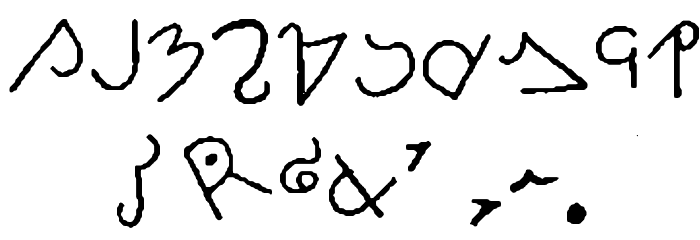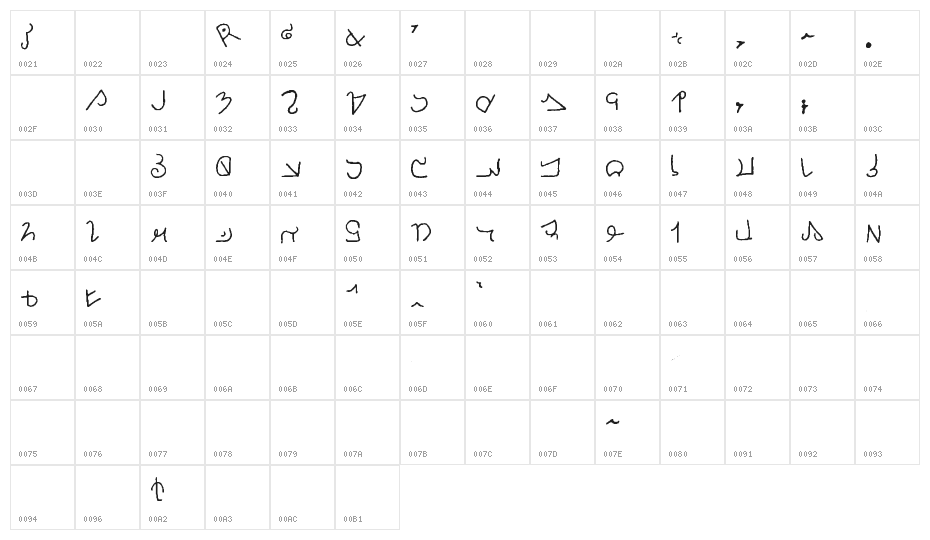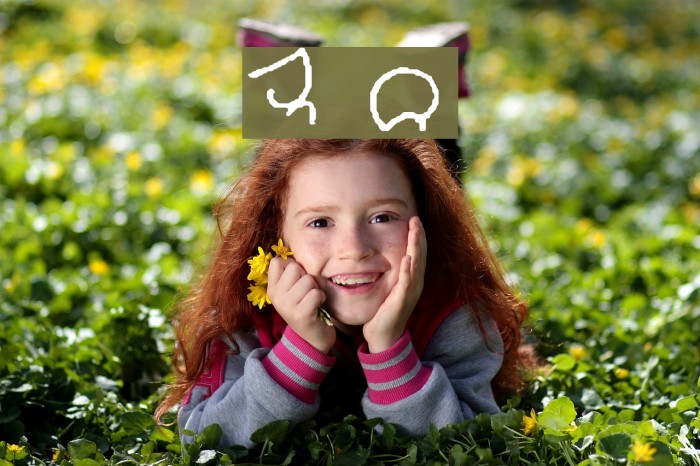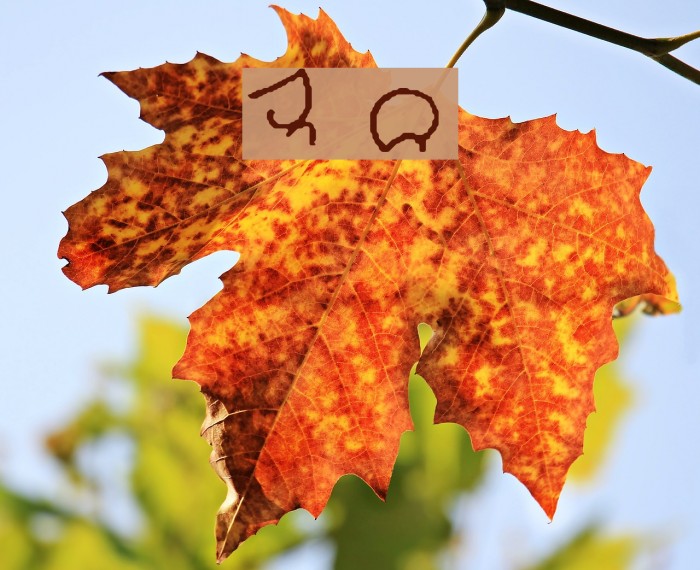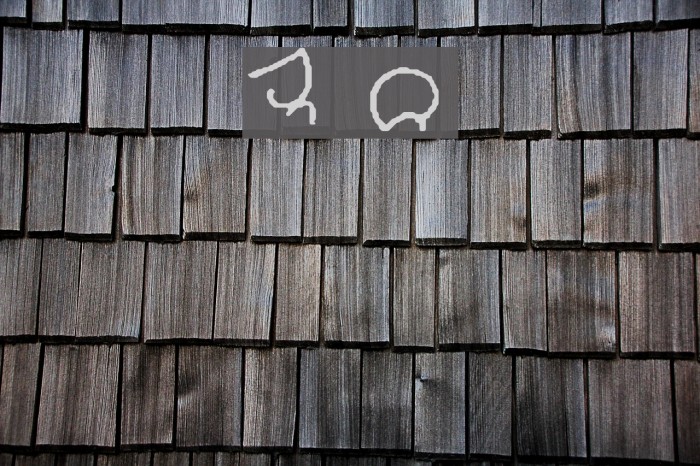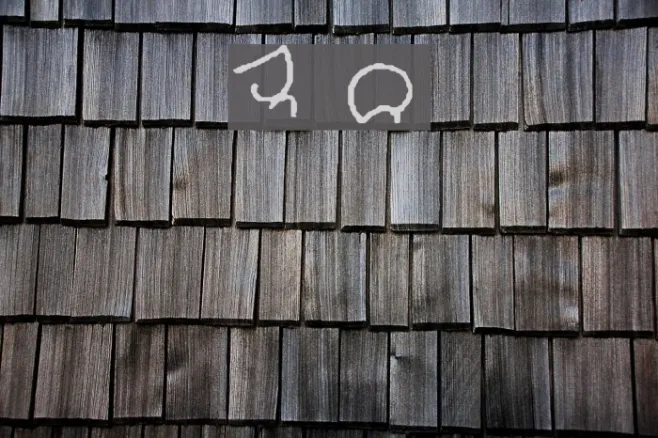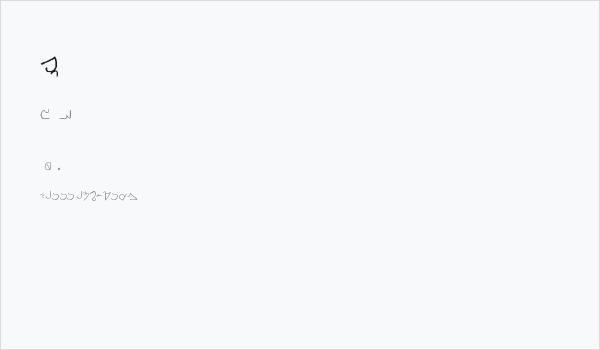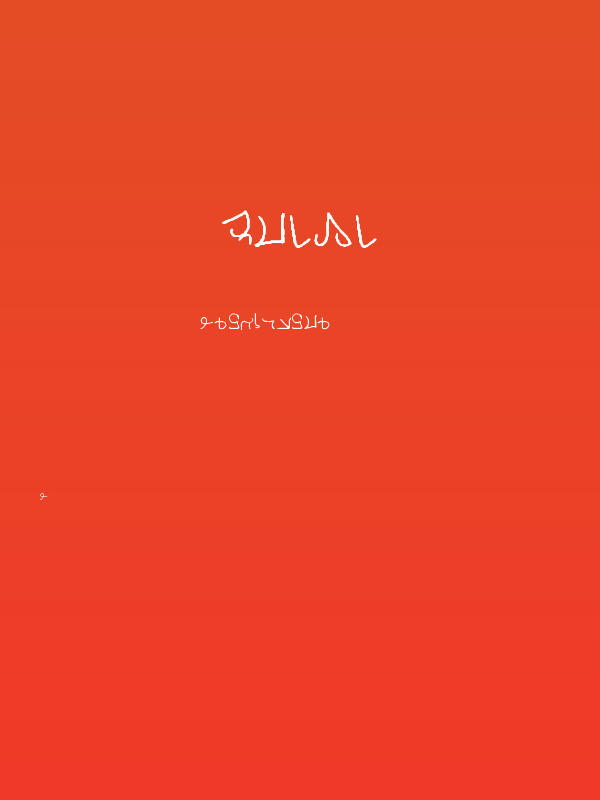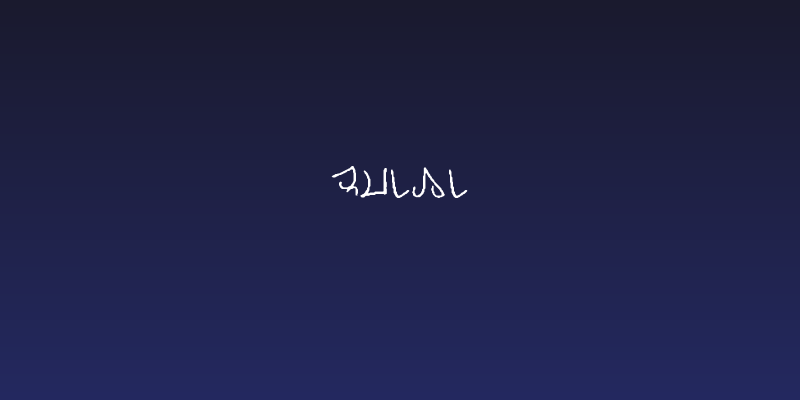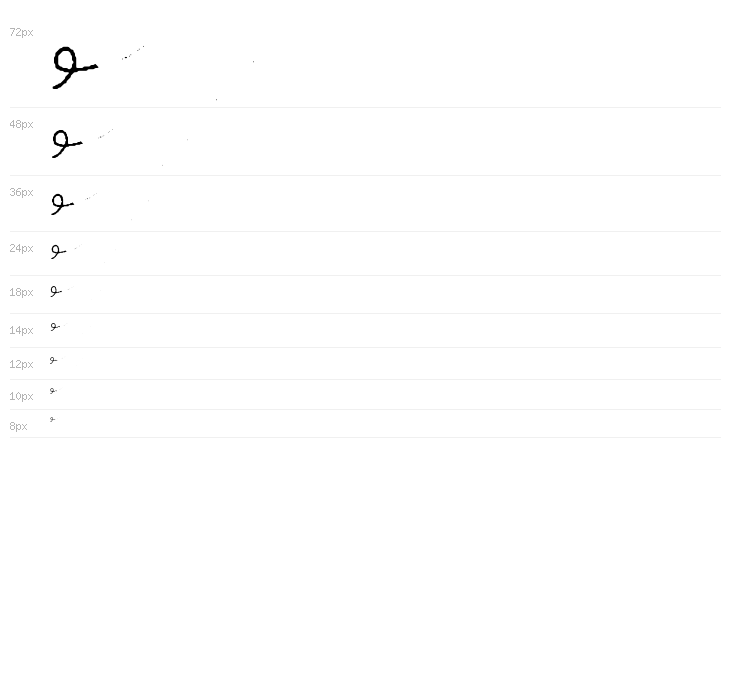
Shiwi Font
Shiwi Description
This script features a series of interconnected, flowing characters that resemble a cursive or handwritten style. The letters are characterized by smooth curves and loops, giving it an organic and fluid appearance. The strokes vary in thickness, adding a dynamic quality to the text. The overall look is informal and artistic, making it suitable for creative and expressive projects. The script does not adhere to traditional Latin alphabet forms, suggesting it may be a stylized or artistic representation rather than a standard font.
Use CaseDecorative text, Artistic projects
Proposed ProjectsIdeal for artistic projects, creative writing, personal notes, or decorative purposes.